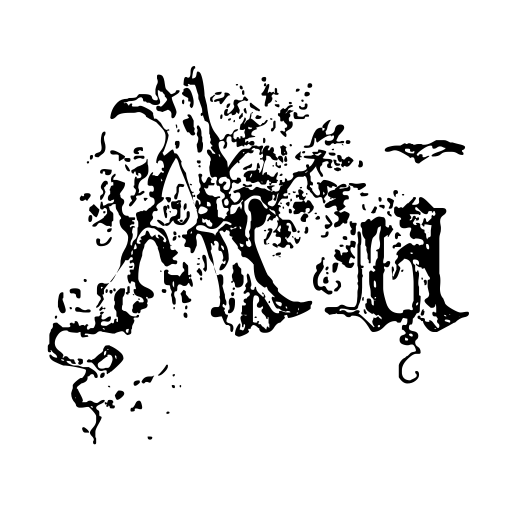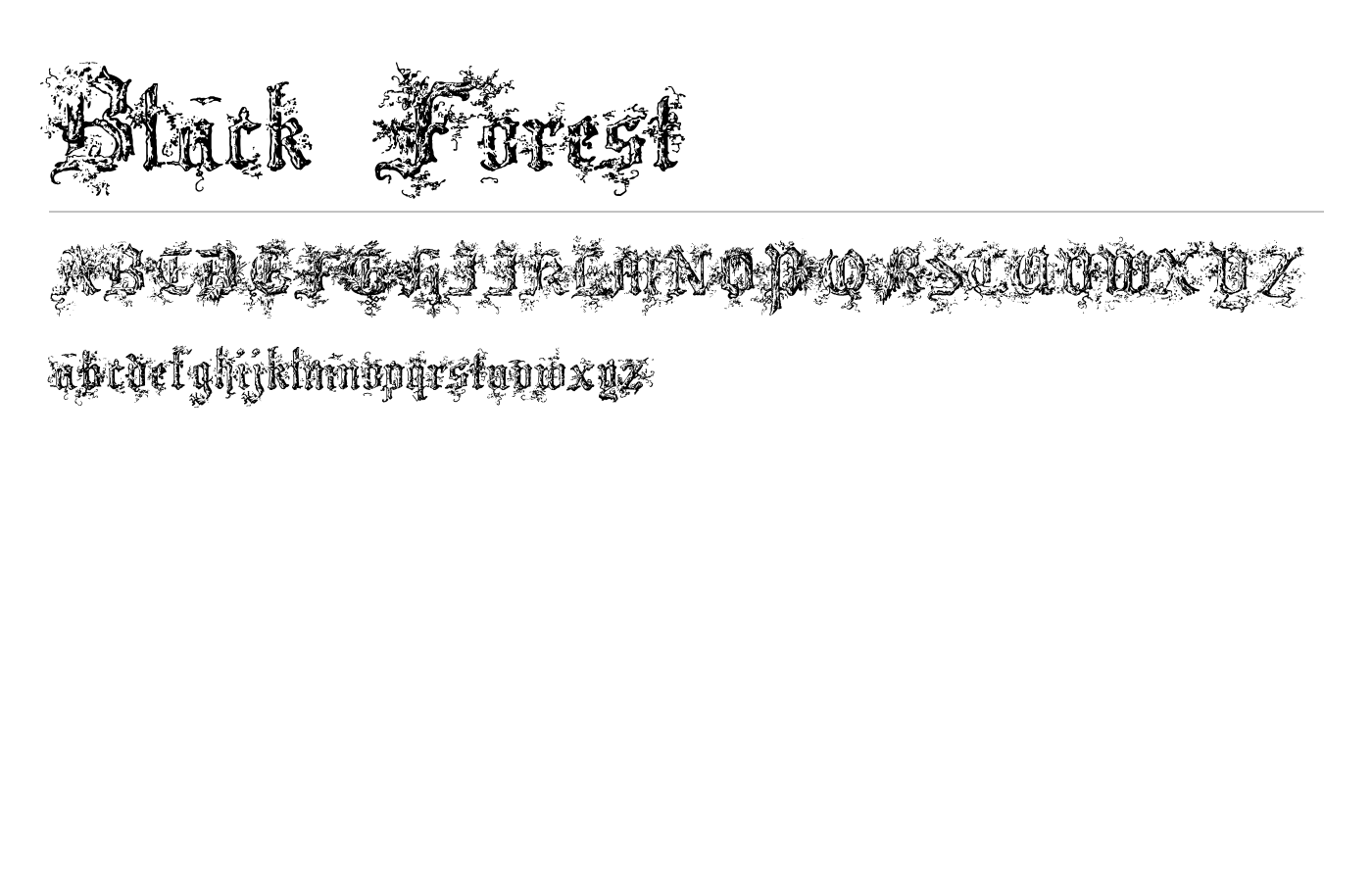
Black Forest is a decorative blackletter serif font with an intricate, distressed texture that mimics organic, forest-like growth. Its dense, high-contrast strokes and elaborate detailing give it a vintage, gothic, and mysterious vibe, making it ideal for theatrical posters, medieval-themed branding, or creative projects seeking a dark, atmospheric flair. This font works best in bold headlines or display uses where its complex design can be appreciated without sacrificing readability.
Black Forest Font
About Black Forest Font